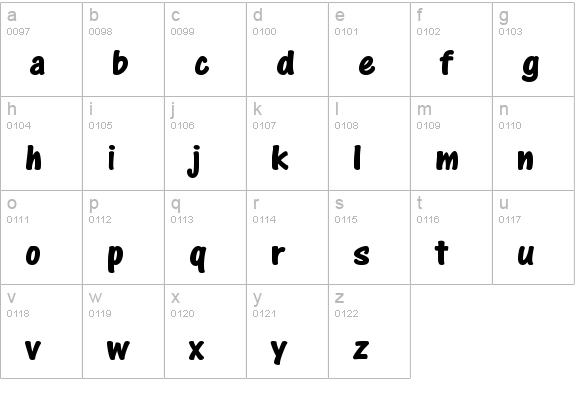
One Stroke Script Std Bold Font Details
One Stroke Script Std Bold is a strong, high-contrast variant in the One typeface family \xE2\x80\x94 well suited to headlines, attention-grabbing titles, and strong calls-to-action.